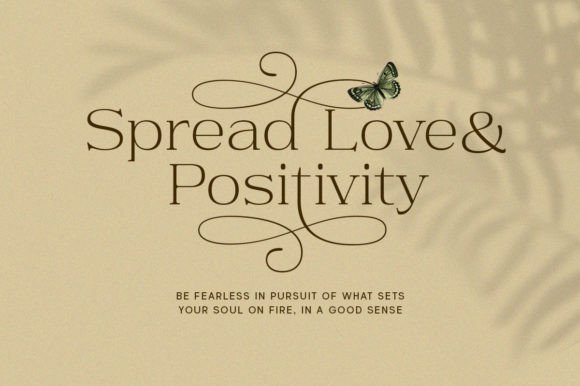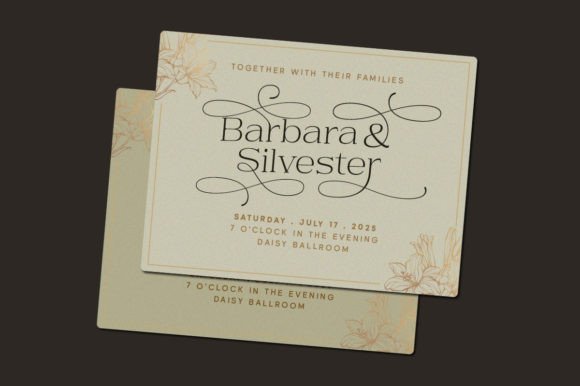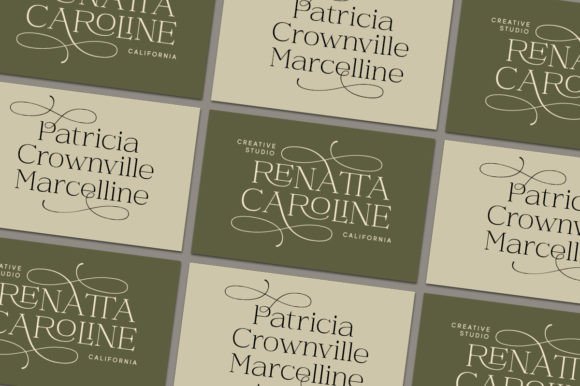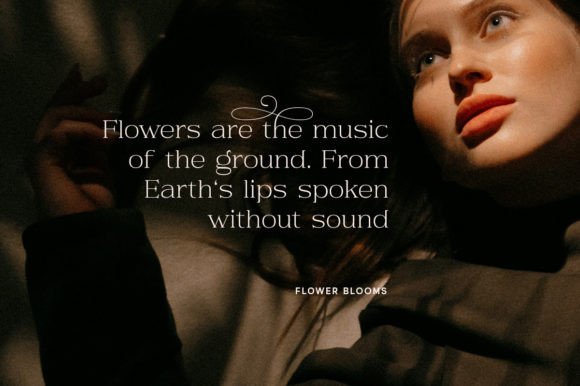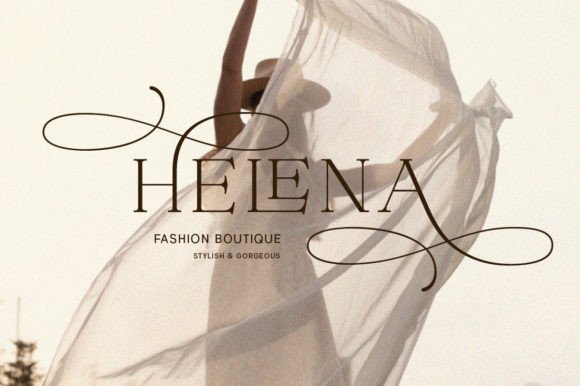
Daisy & Violette: Elevate Your Designs with a Stylish Modern Serif Font
In the realm of typography, few fonts manage to strike a balance between modernity and classic elegance. Daisy & Violette, a stunning serif font, achieves this delicate balance with grace. Its thin serifs and captivating alternates, adorned with graceful flourishes, make it a true masterpiece of font design. Whether you’re a designer looking to elevate your branding, a crafty DIY enthusiast, or simply someone who appreciates beautiful typography, Daisy & Violette is sure to captivate.
The Allure of Daisy & Violette
At first glance, Daisy & Violette may seem like any other serif font. However, upon closer inspection, its unique characteristics become apparent. The thin serifs add a touch of sophistication, while the alternates and flourishes inject a sense of playfulness and whimsy. This font is perfect for designs that require a level of refinement and poise, such as high-end packaging, editorial layouts, and upscale event invitations.
Unleash Your Creativity with Daisy & Violette
One of the most exciting aspects of Daisy & Violette is its versatility. This font can be used in a wide range of design applications, from digital projects to print materials. Imagine using it to create:
- High-end packaging: Add a touch of luxury to your product packaging with Daisy & Violette. Its elegant design will help your brand stand out on store shelves.
- Editorial layouts: Use Daisy & Violette to create visually stunning editorial layouts that will leave readers in awe.
- Upscale event invitations: Make a lasting impression with beautifully designed event invitations that showcase the sophistication of Daisy & Violette.
What Makes Daisy & Violette Special?
So, what sets Daisy & Violette apart from other serif fonts? Here are a few key features that make it truly special:
- Thin serifs: The thin serifs add a level of refinement and elegance to your designs.
- Captivating alternates: The alternates and flourishes provide a touch of whimsy and playfulness, making your designs more engaging.
- Modern and classic: Daisy & Violette strikes the perfect balance between modernity and classic refinement, making it suitable for a wide range of design applications.
Tips for Using Daisy & Violette
To get the most out of Daisy & Violette, here are a few tips to keep in mind:
- Use it sparingly: While Daisy & Violette is a beautiful font, it’s best used sparingly to avoid overwhelming your design.
- Experiment with alternates: Don’t be afraid to experiment with the alternates and flourishes to add visual interest to your design.
- Pair it with other fonts: Try pairing Daisy & Violette with other fonts to create a unique and visually appealing typography combination.
In conclusion, Daisy & Violette is a stylish modern serif font that is sure to elevate your designs. Its unique blend of modernity and classic refinement makes it perfect for a wide range of design applications. Whether you’re a designer, crafty DIY enthusiast, or simply someone who appreciates beautiful typography, Daisy & Violette is a must-have font that will leave a lasting impression.